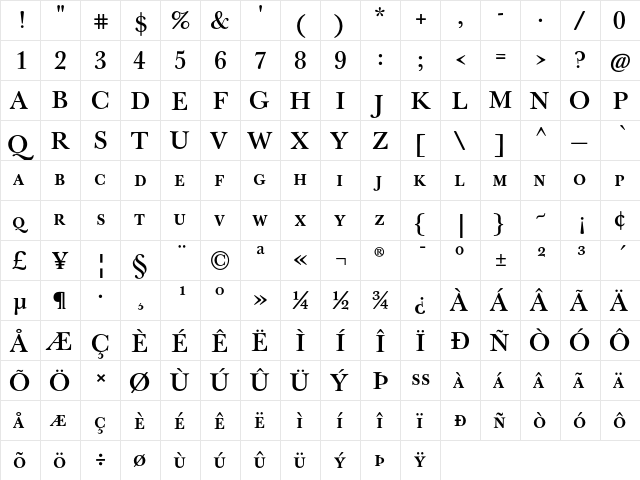
J Baskerville Caps Bold
Design Context for J Baskerville Caps Typeface
J Baskerville Caps takes a measured approach to typography — its balanced proportions and neutral character make it a reliable workhorse for both digital and print work. Its bold stroke weight gives it real presence on the page.